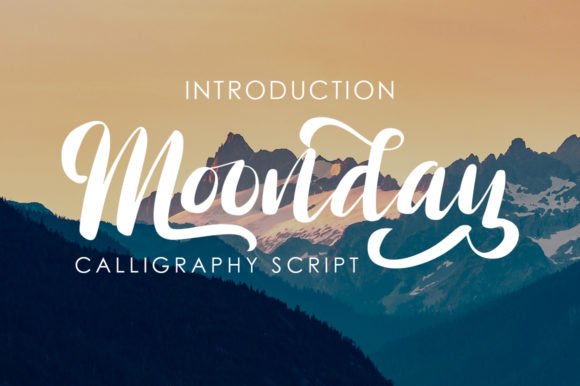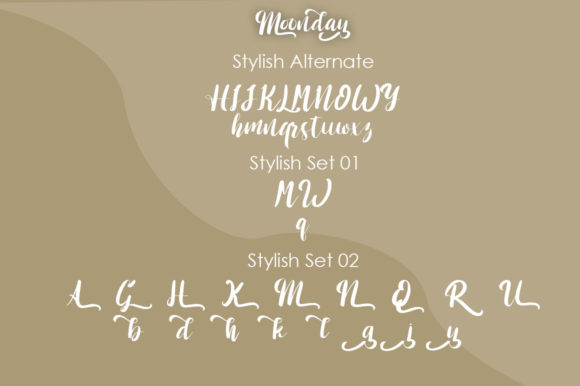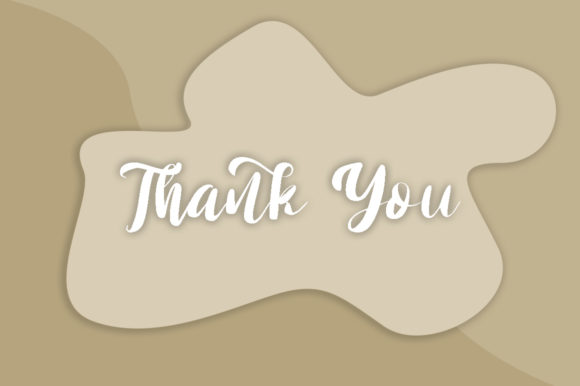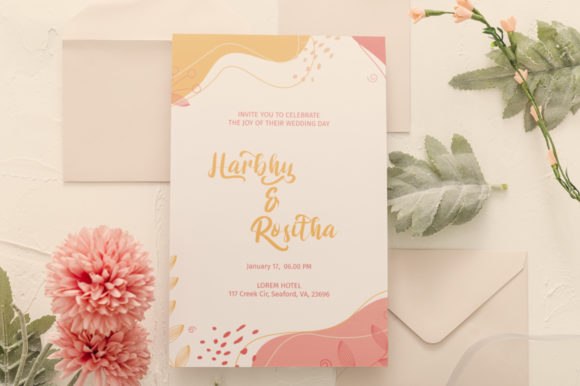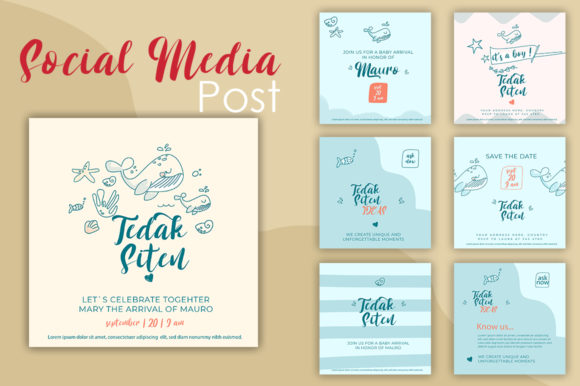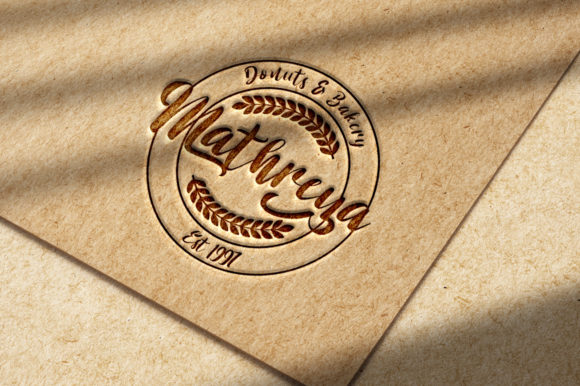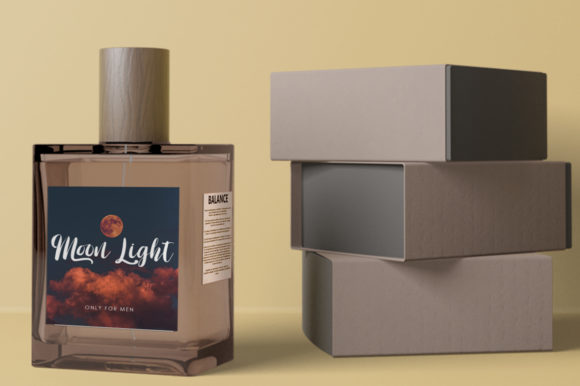
About Monday Font
Monday is a sweet and friendly handwritten font. Its natural and unique style makes it incredibly fitting for a large pool of designs. The only limit is your imagination!